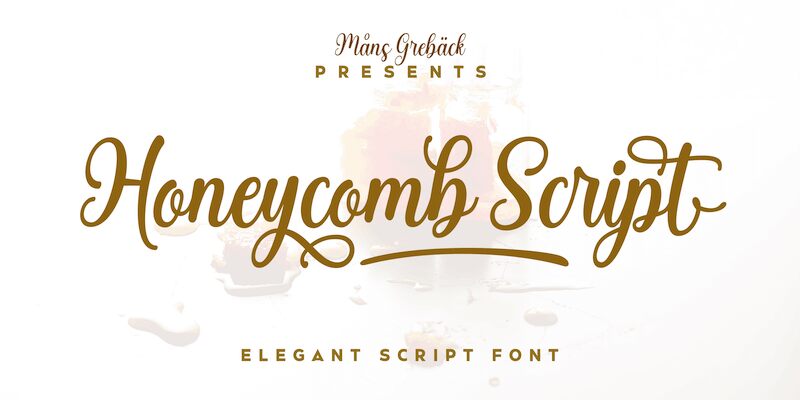
Honeycomb Script by Mans Greback is a stunning calligraphy font that adds a touch of elegance to any project. Its semi-condensed width makes it perfect for titles, headlines, invitations, and logos. The flowing strokes and swirly details give this font a unique charm that will captivate any audience. Whether you're designing wedding invitations or creating branding materials for a luxury brand, Honeycomb Script will elevate your designs to the next level. With its timeless appeal and modern flair, this semi-bold font is sure to impress. Add some sweetness to your designs with Honeycomb Script!
Honeycomb Script is a delightfully charming handwriting font, boasting a cute and quirky aesthetic. With its naive and endearing style, it captures the magical essence of the natural world's sweetest architect.
Use one or multiple underscores _ anywhere in a word to add a decorative underline.
Example: Sweet_____Honey
Try using # before or after any word to make lovely swashes.
Example: #beehive#